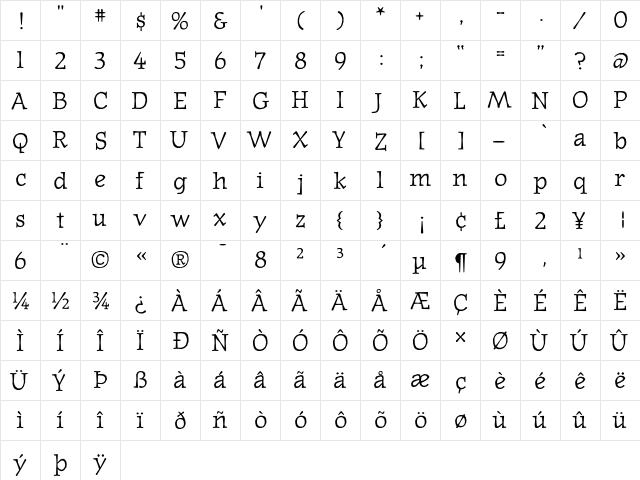
JournalText Regular
| Foundry | Copr. Emigre Graphics |
Design Context for JournalText Typeface
JournalText takes a measured approach to typography — its balanced proportions and neutral character make it a reliable workhorse for both digital and print work.